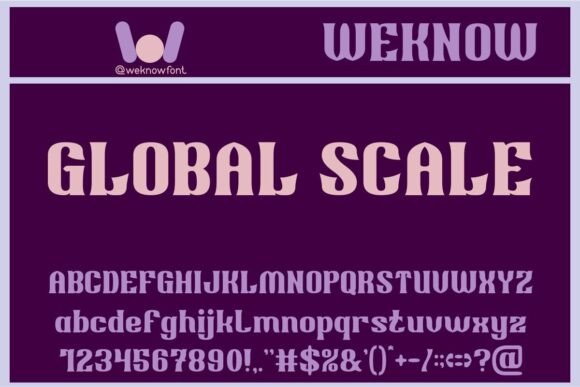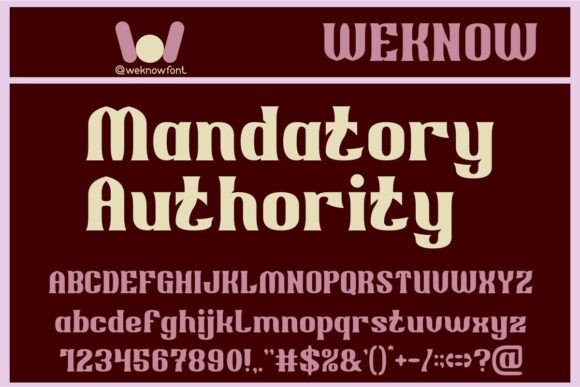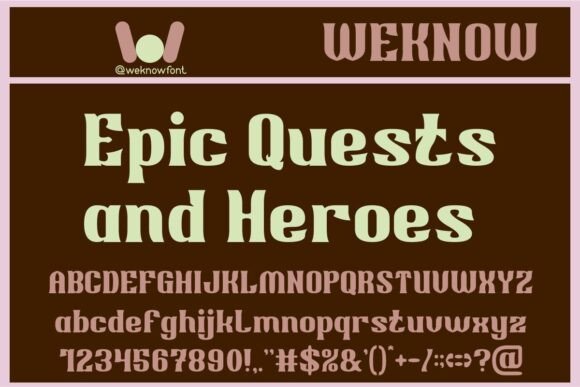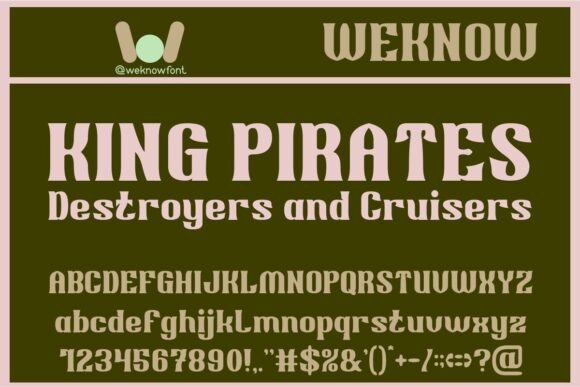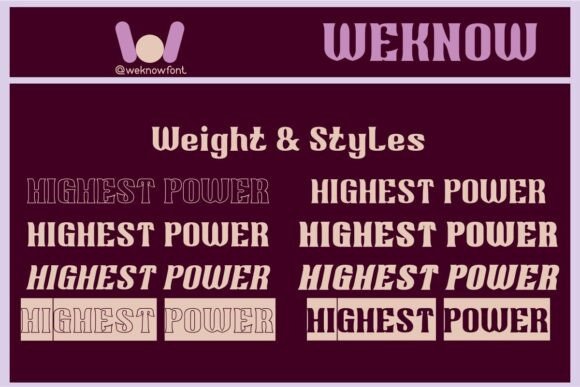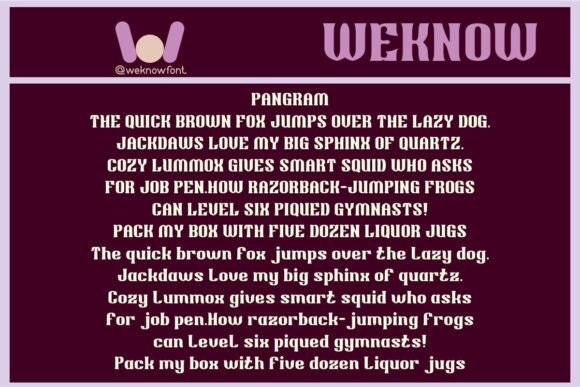
Unlocking the Potential of Highest Power Font
Do you remember that moment when you finally landed the perfect font to elevate your creative project? The one that made your design pop, and your audience take notice? For designers, that moment is pure magic. It’s the culmination of hours spent searching for the perfect font, testing different combinations, and tweaking details. And when you find it, it’s like a breath of fresh air. Introducing the Highest Power Font, a game-changing serif display font that’s about to revolutionize your design workflow.
With Highest Power Font, you’ll be able to craft stunning headlines, corporate identities, and brand materials that exude sophistication and cool charm. Whether you’re working on a fashion campaign, book cover, or music poster, this font is the perfect sidekick to help you create high-quality designs that stand out from the crowd.
Key Features of Highest Power Font
- High-Quality Design: Highest Power Font is designed with precision and care to ensure a professional look for your creative project.
- Unique Characteristics: Highest Power Font features a unique blend of modern and vintage elements, making it an excellent choice for designers looking to add a touch of personality to their creative project.
- Large Character Set: The font includes a large character set, including uppercase and lowercase letters, numbers, and punctuation marks, making it a versatile design resource.
Honest Review: Highest Power Font
I recently stumbled upon the Highest Power Font, and I must say it’s been a game-changer for my creative projects. The font is truly a high-quality design resource, perfect for making a statement. ✨
One of the things that stood out to me was the transparent background, which makes it incredibly versatile and easy to work with. Whether I’m designing a logo or creating a social media graphic, this font has been a lifesaver.
- Transparent background for versatility
- May not be suitable for all creative projects (e.g. body text)
- Can be overwhelming in large quantities
Overall, I’m really impressed with the Highest Power Font. It’s a great addition to any designer’s toolkit, and I would definitely recommend it to my peers.
Highest Power Font is suitable for a variety of design projects, including logos, business cards, and social media graphics. Its high quality and transparent background make it an ideal choice for designers who want to create visually striking and professional-looking designs.